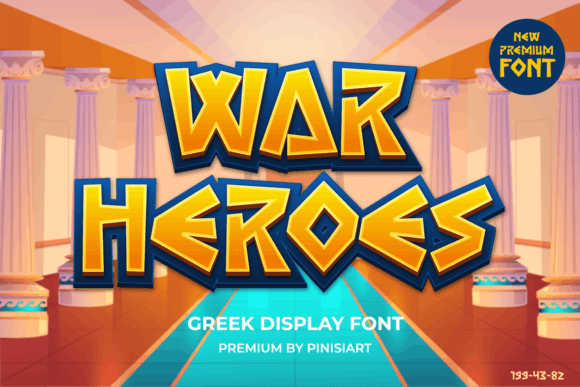
Journey through the annals of history and mythology with War Heroes Font, the display font that captures the essence of epic tales. Inspired by the gods of Ancient Greece, this font is a masterpiece that will transport your designs to a realm of grandeur and heroism.
Picture your words adorned in the bold and majestic strokes of War Heroes Font, commanding attention on history books, online games, and stationery. Its timeless charm adds a touch of sophistication to school supplies, posters, and movie titles, while its captivating presence elevates Youtube covers, thumbnails, and social media posts to new heights of engagement.
Immerse yourself in the creative possibilities that await with War Heroes Font. Its versatility knows no bounds, lending an air of authenticity to history books and online games, while infusing stationery and school supplies with a sense of adventure. Unleash your imagination and craft posters and movie titles that resonate with power and glory.
With War Heroes Font, your designs will conquer hearts and minds, leaving an indelible mark on your audience. Join the ranks of creative warriors and let this font inspire your greatest masterpieces. Seize the opportunity to add War Heroes Font to your arsenal today and embark on a creative odyssey like no other!